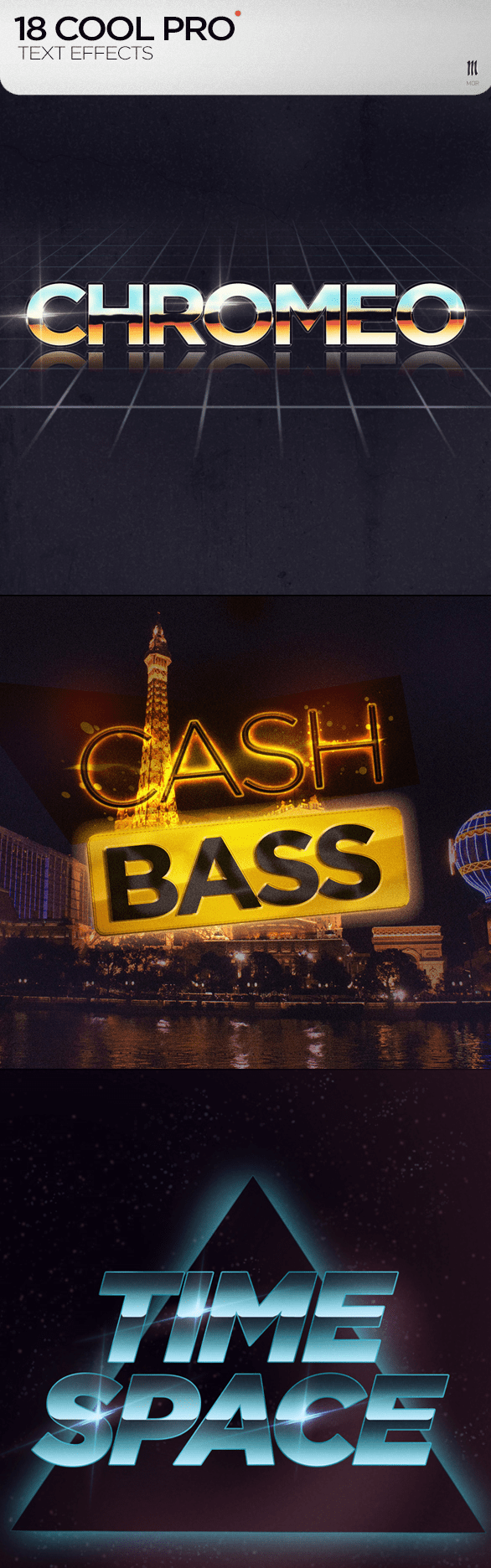
Photoshop is the Holy Grail. It’s an essential and often times, preferred tool for creating awesome designs. However, there are times when crafting something from total scratch can be a pain. This is especially true if you have a lot of projects in line.
Constantin Mor understands this, and that’s the reason why he is constantly producing excellent brushes, text and photo effects, icons, and PSDs. For today’s freebie, Mor offers 3 gorgeous text font effects namely, Chromeo, Cash Bass, and Time Space from his huge 18 piece set.
Chromeo has a vintage arcade feel to it, Cash Bass will make you think of flashy casino venues, and, finally, Time Space is reminiscent of classic sci-fi movies.